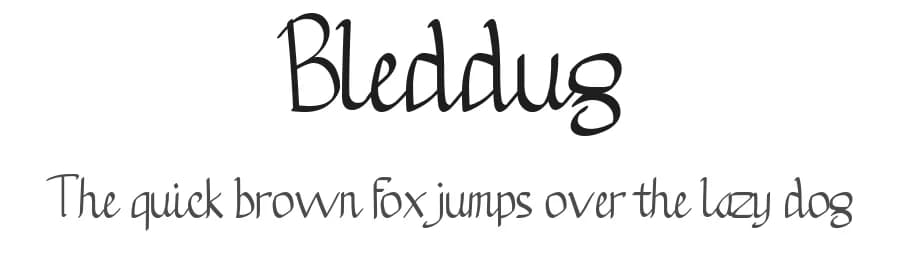
About Bleddug Font
Bleddug is a script & handwritten font designed by Just Lett. It includes 236 glyphs, a regular weight, TTF (TrueType) format, and 209 languages. Bleddug is free to download; check the license details on this page before commercial use. Script & handwritten fonts like Bleddug work best for wedding invitations, greeting cards, signatures, and elegant branding.
Bleddug Font is a script font that shines as a display or heading face. Pair it with a clean sans-serif or serif font for body text β the contrast creates a clear hierarchy while the two styles stay balanced and easy to read.
Bleddug Font